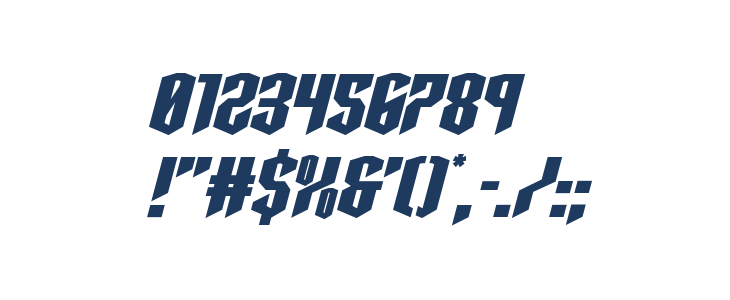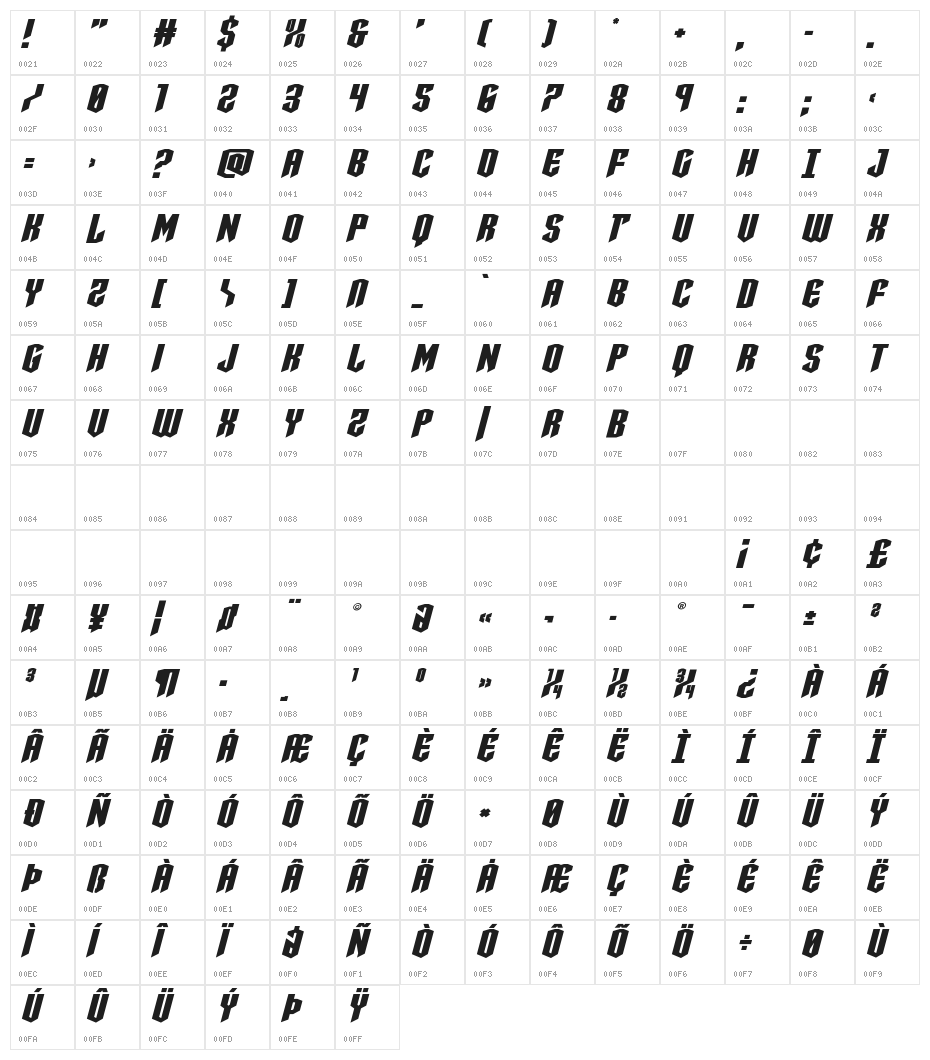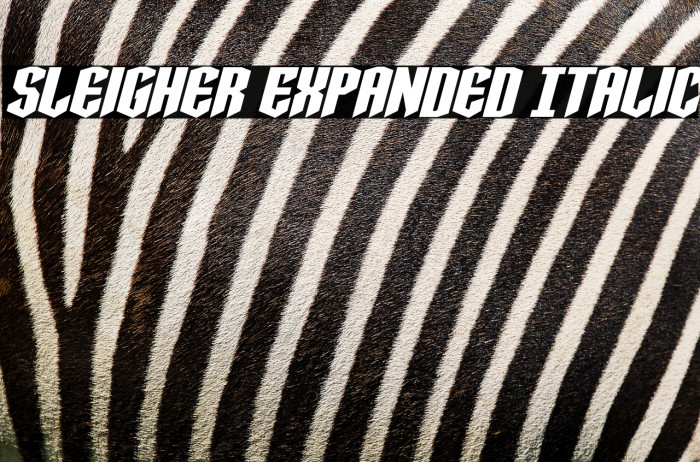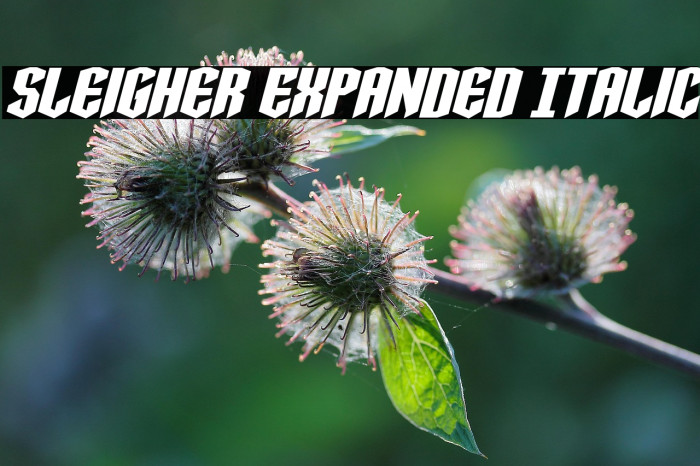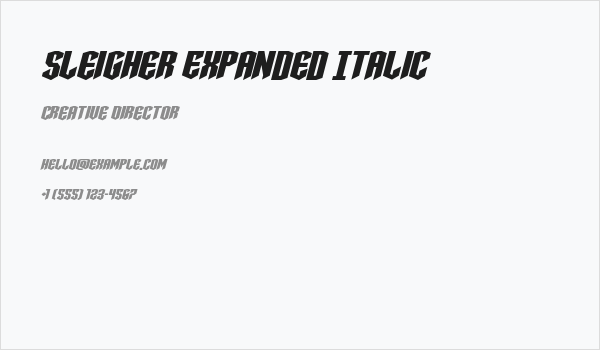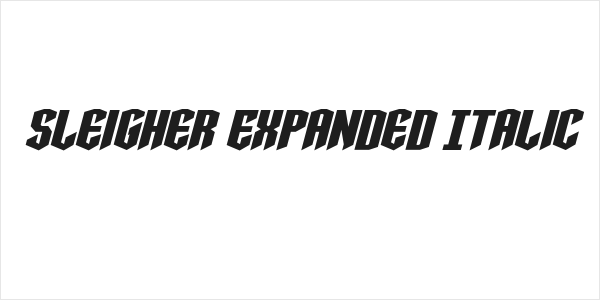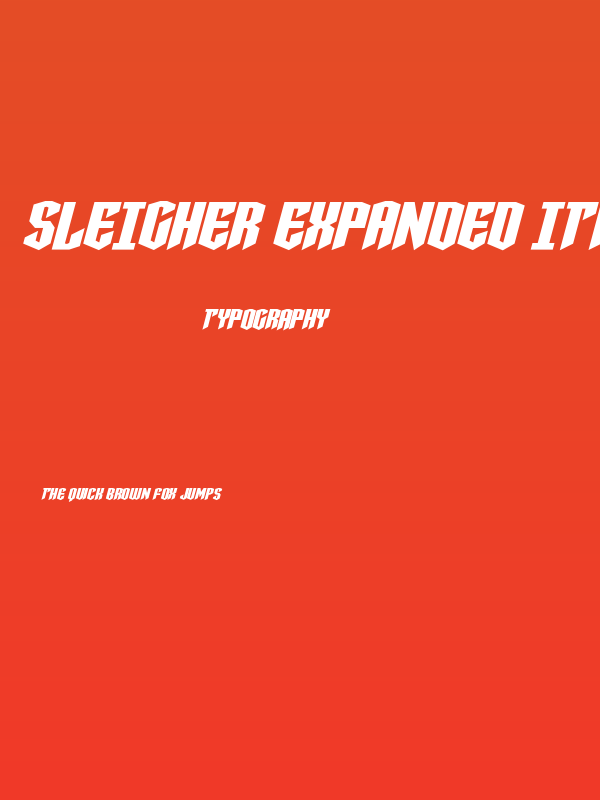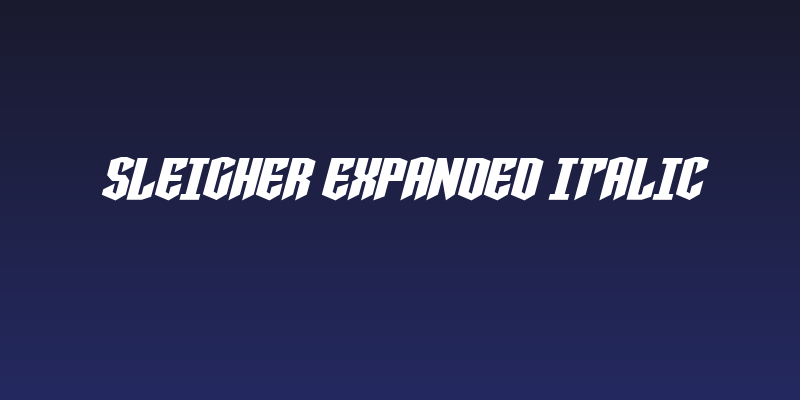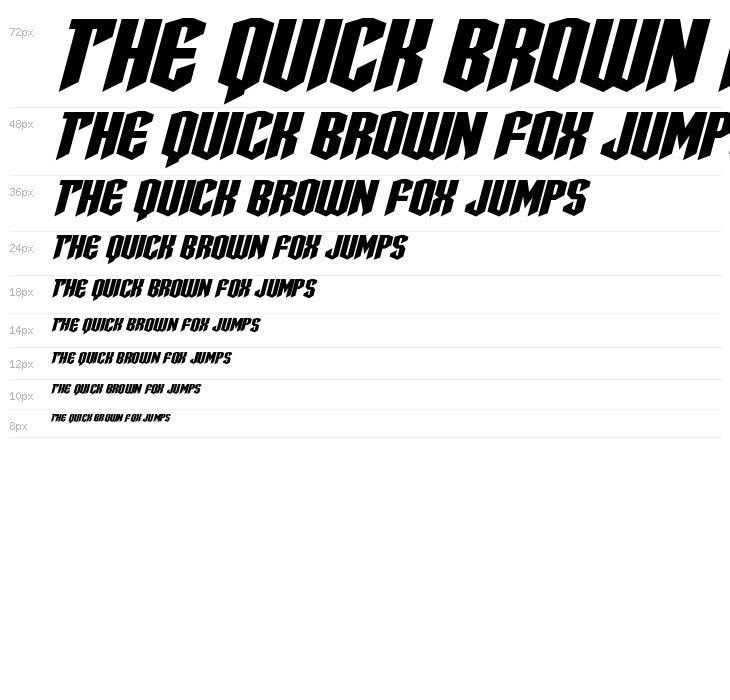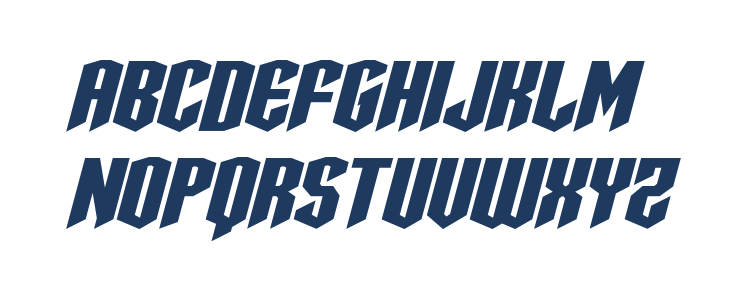
Sleigher Expanded Italic Font
Sleigher Expanded Italic Description
This font features a bold and dynamic design with an italic slant, giving it a sense of motion and energy. The characters are sharply angled, with thick strokes that create a strong visual impact. The expanded width adds to its boldness, making it ideal for attention-grabbing headlines or titles. The uppercase and lowercase letters maintain a consistent style, with sharp edges and a slightly aggressive appearance. Numbers and special characters are designed to match the overall aesthetic, ensuring uniformity across all text elements.